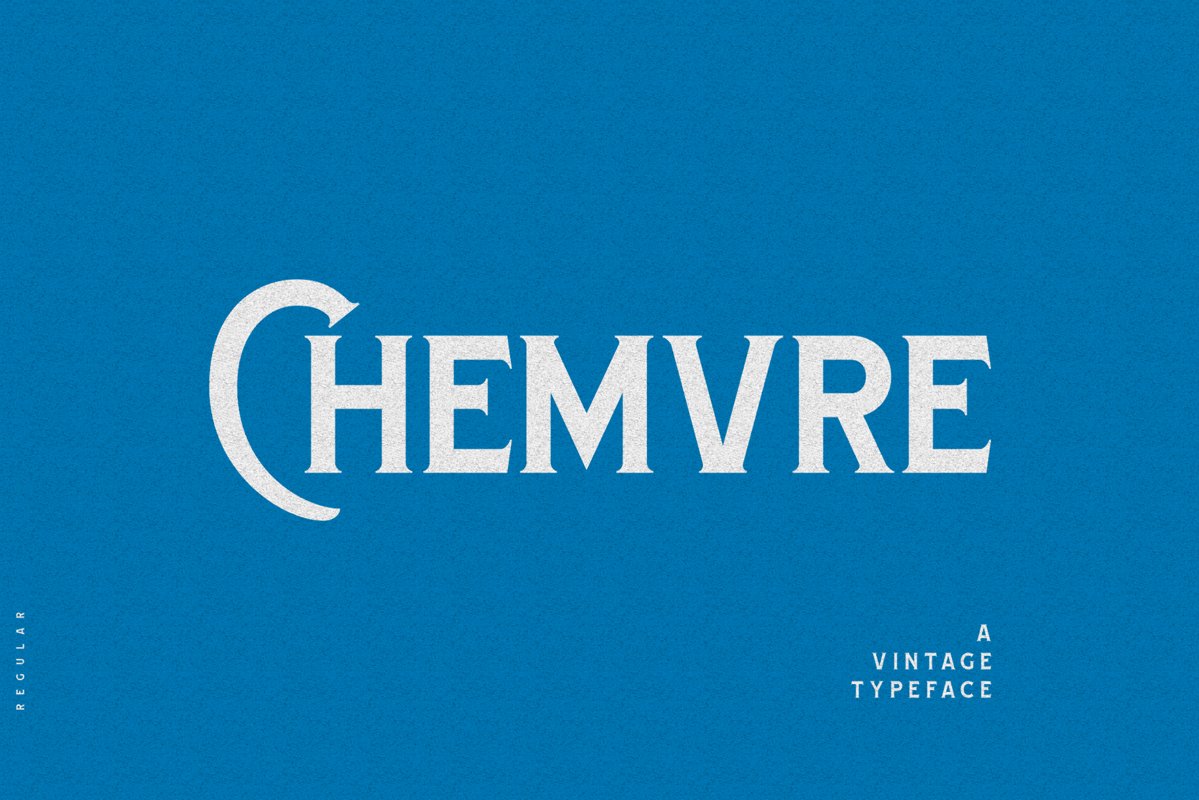
Chemvre
CHEMVRE is the classic serif, clean lines, modern serifs, and just a touch of vintage. Will be very suitable for a clean and strong logo.
Standard Ligature.
Alternative Characters.
Support Multilingual Characters.